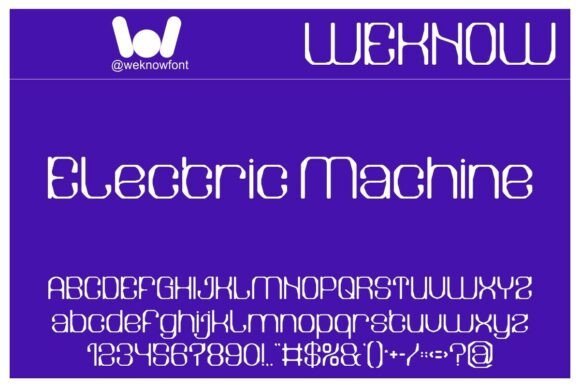
The Spark of Creativity: Unleashing Electric Machine Font
Have you ever been brainstorming a new design concept, pouring over sketches and ideas, only to be struck by a flash of inspiration that sets your creative juices flowing? That’s exactly what happens when you encounter Electric Machine Font – a dynamic display font that’s sure to electrify your designs. With its futuristic, techno essence, Electric Machine Font is the perfect tool for designers looking to push the boundaries of modern aesthetics.
As a cutting-edge font, Electric Machine Font is designed to help you create logos, posters, and other visual elements that truly stand out from the crowd. Its geometric, monoline structure makes it an ideal choice for brands and corporations looking to make a bold statement. Whether you’re working on a new campaign, creating a website, or designing a product label, Electric Machine Font is the perfect companion to fuel your creative projects.
Key Features of Electric Machine Font
- Size: This font family includes a range of weights and styles, from Thin to Black, providing flexibility for various design applications.
- Unique Characteristics: The font features a distinctive, industrial-inspired design with a focus on geometric shapes and clean lines, making it ideal for modern and tech-related projects.
- Language Support: Electric Machine Font includes a wide range of language support, including Latin, Cyrillic, and Greek scripts, as well as support for various diacritical marks and special characters.
- Font Metrics: The font’s metrics are carefully designed to ensure optimal readability and consistency across different weights and styles, making it suitable for use in body text and headings.
Electric Machine Font Review
First off, I want to say that I’m really excited about the Electric Machine Font. The designer has put a lot of effort into creating a unique and futuristic aesthetic that’s sure to grab attention. ✨ The font’s sleek lines and geometric shapes make it perfect for tech-related projects, and it’s also great for creating a sense of energy and dynamism.
- ✨ Unique and futuristic aesthetic
- ✨ Perfect for tech-related projects
- ✨ Great for creating a sense of energy and dynamism
However, there are a few limitations that I want to mention:
- ⚠️ Limited character set
- ⚠️ Not ideal for long blocks of text
- ⚠️ Can be difficult to read at small font sizes
Overall, I’m really impressed with the Electric Machine Font, but I do think it’s best suited for projects where it can be used sparingly. If you’re looking for a font to add some visual interest to a logo or heading, this is a great choice. Just be mindful of its limitations, and you’ll be golden.
For best results, use the Electric Machine font in bold or italic styles to add emphasis and create a dynamic look.
Use the Electric Machine font to add a futuristic touch to your designs, such as in logos, titles, or headings.
Use the Electric Machine font to add a modern and edgy touch to your presentations and documents.
Some common use cases for the Electric Machine font include:
- Titles and headings
- Infographics and data visualizations
Remember to use the Electric Machine font in moderation to avoid overwhelming your design. Balance it with other fonts and design elements to create a visually appealing and effective design.